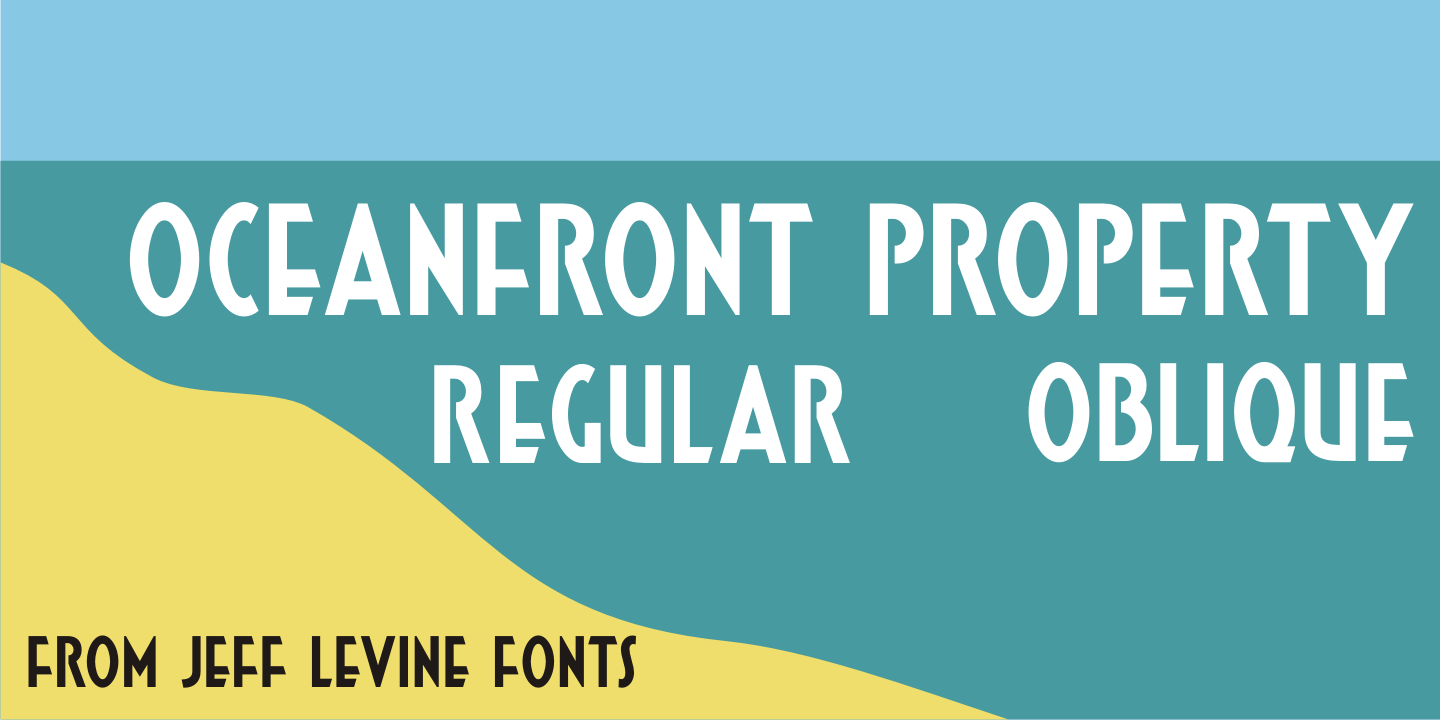
Designed by Jeff Levine, Oceanfront Property JNL is a display sans and art deco font family. This typeface has two styles and was published by Jeff Levine Fonts.
Oceanfront Property JNL was modeled from the hand lettered title on the cover of the 1932 sheet music for “There’s Oceans of Love by the Beautiful Sea”.
A simple sans, it still reflects the beginnings of the Art Deco Era with its approach to letterforms and varying widths. This type design is available in both regular and oblique versions.